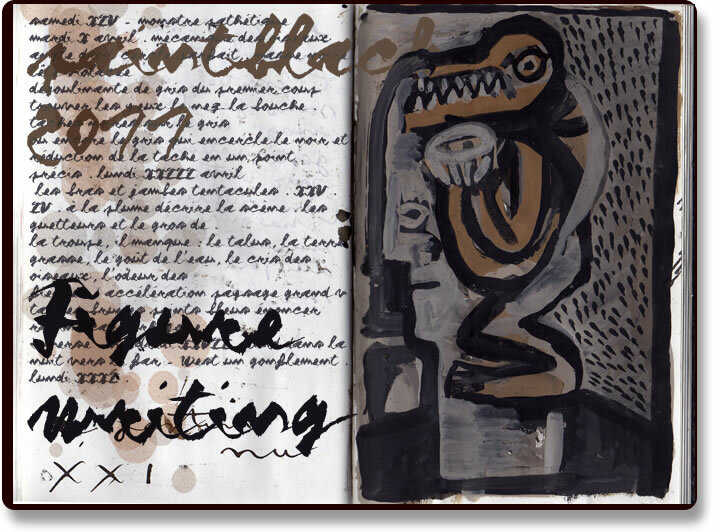
Figure Writing by paintblack is a free graffiti brush font with forceful, fast-moving strokes. Its letters lean, collide, and change width sharply, with pointed joins, ink gaps, and stray flecks lending the line a raw painted surface.
Concert posters are its strongest setting, echoing hand-painted music graphics. The same restless texture suits streetwear branding, skate merchandise, and album artwork, where the lettering can become part of the graphic image rather than a neutral caption.